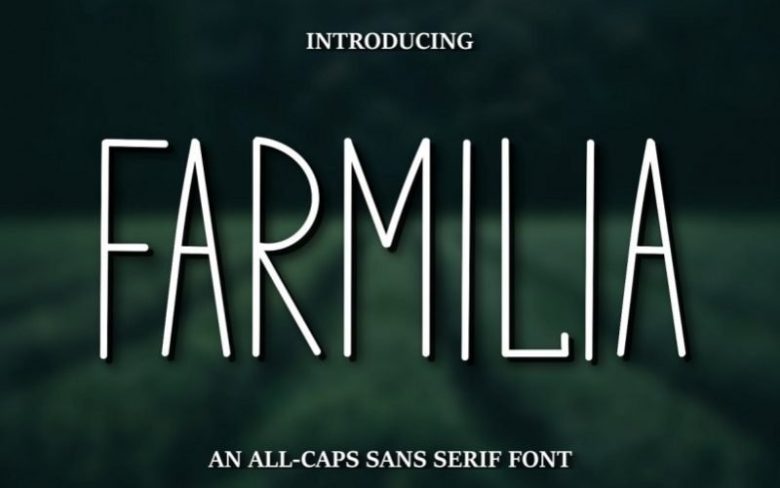
Farmilia Sans Serif Font
Introducing Farmilia – a fun hand-drawn all caps font!
This beautiful font is perfect for: quotes, branding, posters, cards, invitations, logos, DIY Cutting Machine projects, wall art, packaging, scrapbooking, greeting cards and even more!